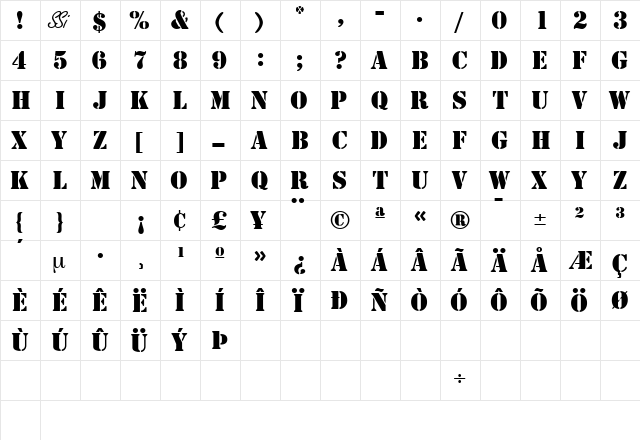
TemplateCapsSSi Bold Font Preview
TemplateCapsSSi Bold
Design Context for TemplateCapsSSi Typeface
TemplateCapsSSi offers clean, dependable letterforms without strong stylistic allegiance, making it a practical choice for designers who need flexibility. The heavy weight commands attention and anchors typographic hierarchies.